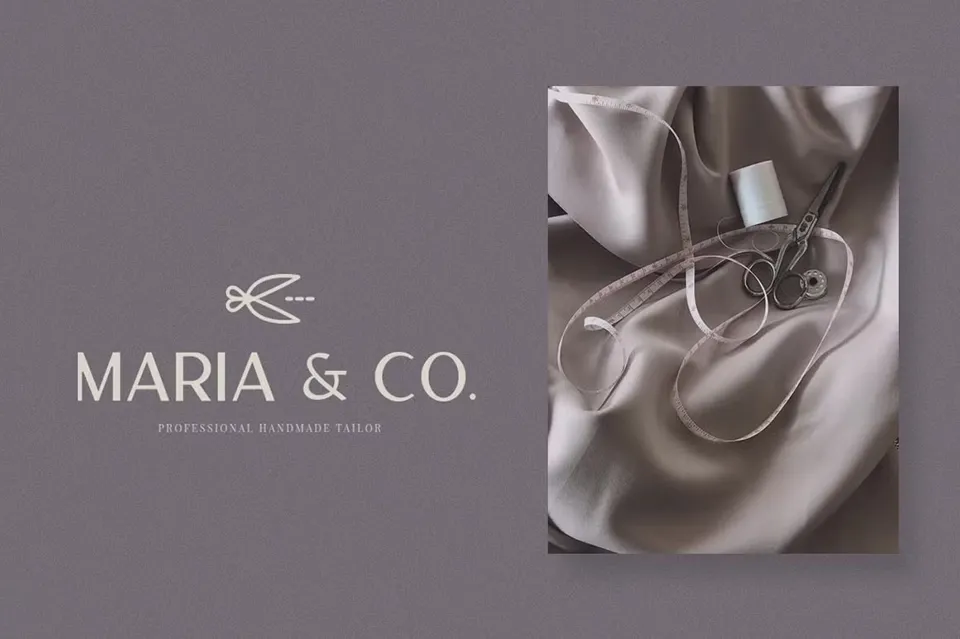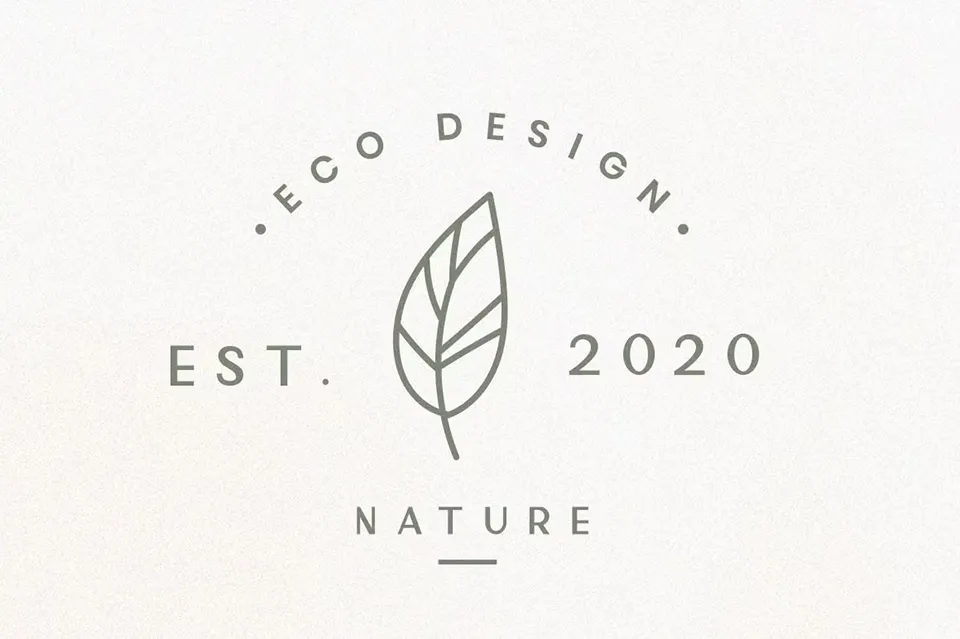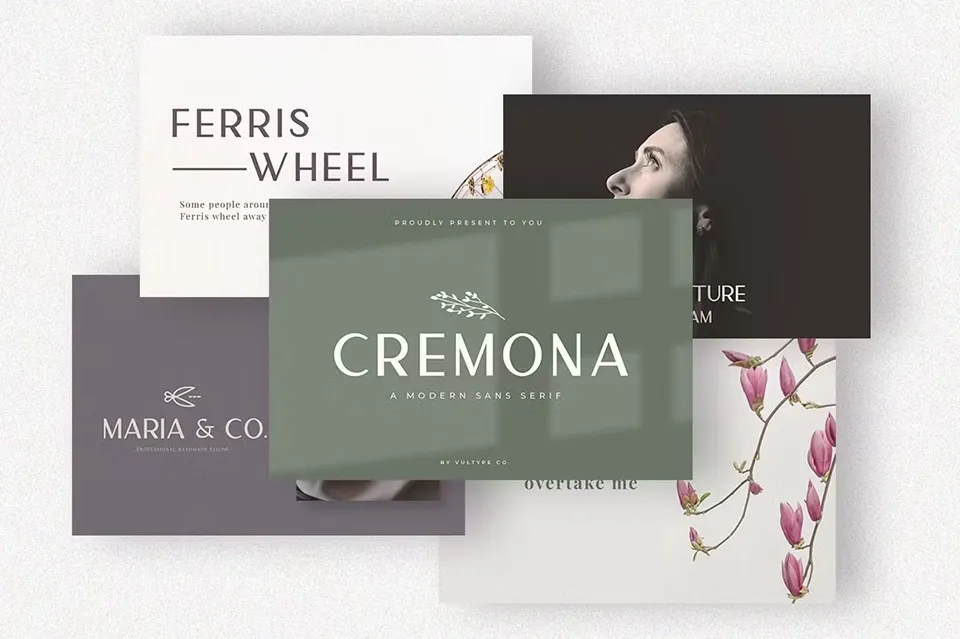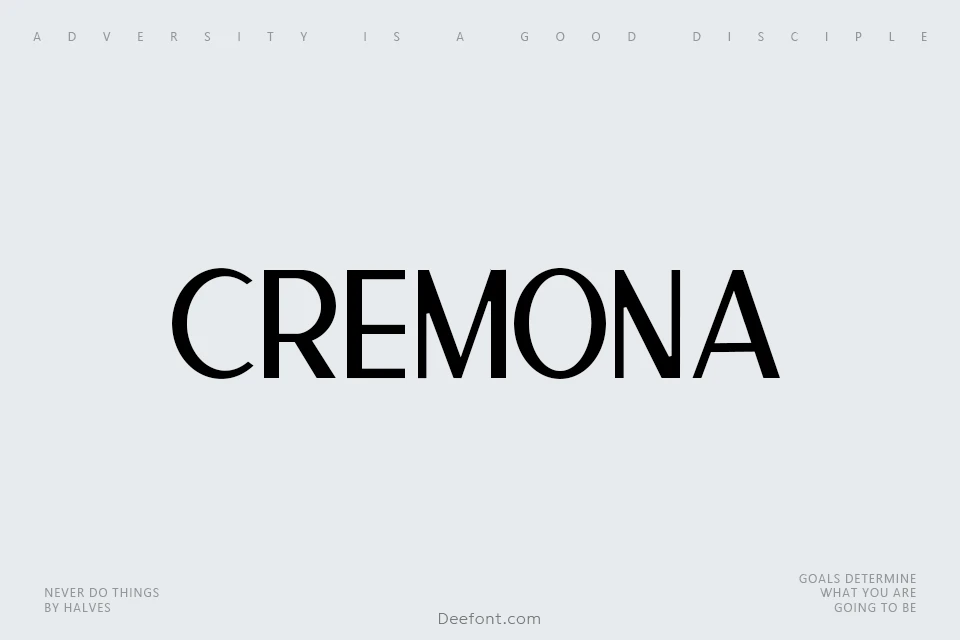
Cremona Sans Serif Font
Cremona Sans Serif Font is a clean, minimal, and modern sans serif typeface designed to be both functional and elegant. With its memorable and fashionable character, it offers a versatile solution for a wide range of design projects, including presentations, magazines, titles, web layouts, logos, invitations, business cards, and branding. The font family features both Regular and Bold styles, allowing for creative combinations that enhance visual appeal and clarity in any context.